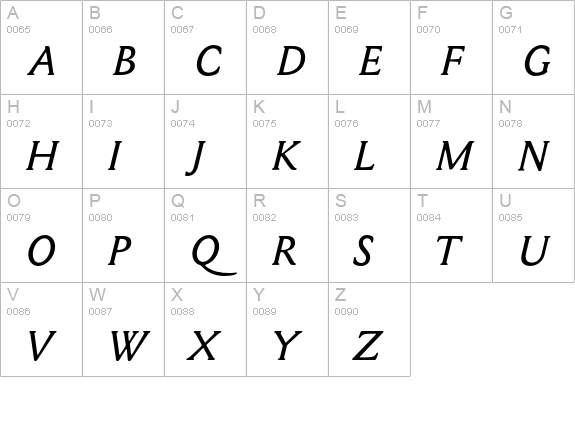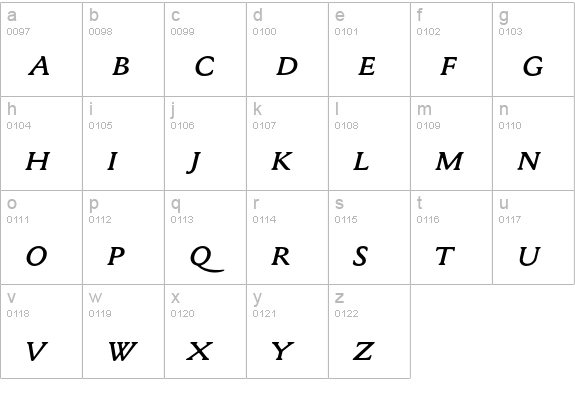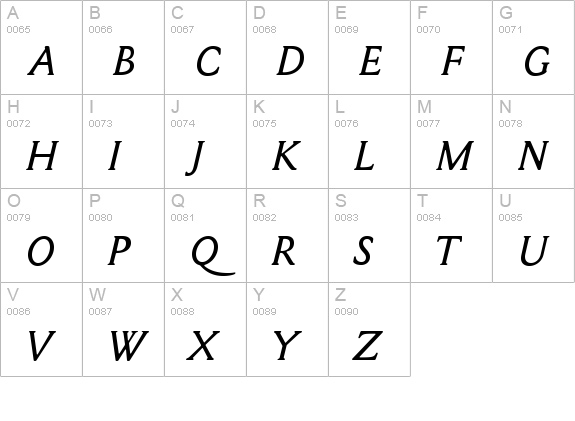
MediaevalSCOSF-Italic Font Details
MediaevalSCOSF-Italic is a distinctive, italic variant in the MediaevalSCOSF typeface family \xE2\x80\x94 well suited to design and typography projects.
MediaevalSCOSF-Italic font is a timeless and elegant typeface that captures the essence of the medieval era with its intricate details and sophisticated design. The italic styling of this font adds a touch of sophistication and versatility, making it perfect for a wide range of design projects. The MediaevalSCOSF-Italic font is not only visually appealing but also incredibly versatile, making it suitable for use in various design applications such as logos, branding, invitations, and more. Its classic yet modern look will give your projects a unique and refined touch. Best of all, the MediaevalSCOSF-Italic font is available for free download at FontsMarket.com. This means that you can easily access and use this stunning font in your projects without any cost. Don't miss out on the opportunity to add this exquisite typeface to your design toolkit today!